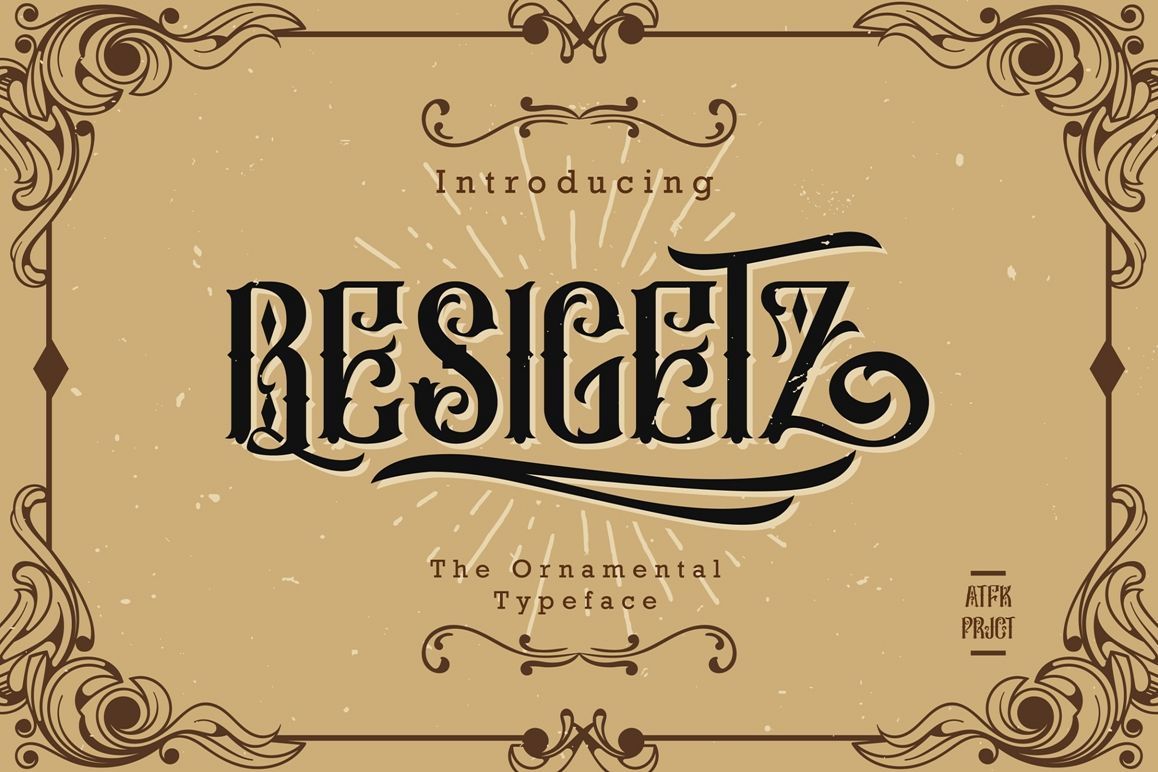
Besigetz Typeface
Introducing our new item named "Besigetz Typeface" the randomly
ornamental typeface which very recommended for your headline or display.
Of course made with art nouveau and vintage taste. The letters created
according serif font as the basic. I suggest you to try this one for
your design project, especially in vintage, retro or oldschool style!
Also you can make your experiment by combining this typeface with modern
or minimalism style. Make your movement!
Typeface featured :
• Punctuation
• Standard latin glyphs
• Stylistic Alternate (Uppercase)
• Custom ligatures
• Swashes